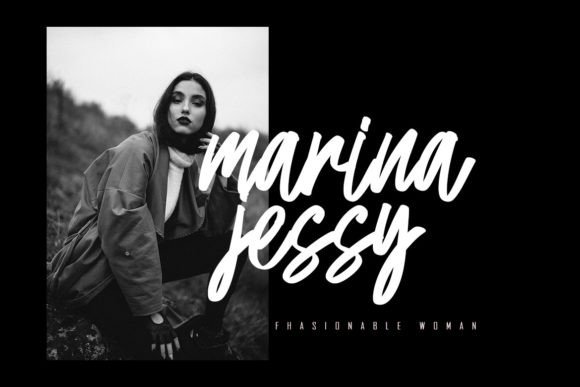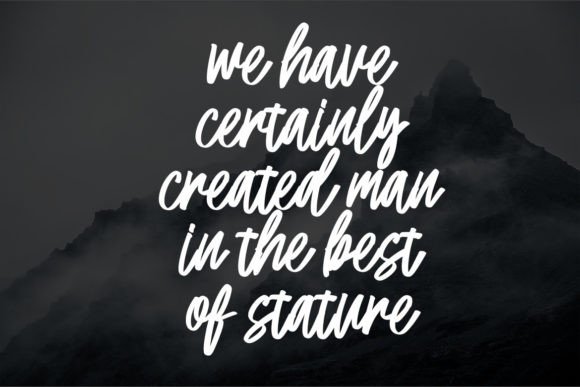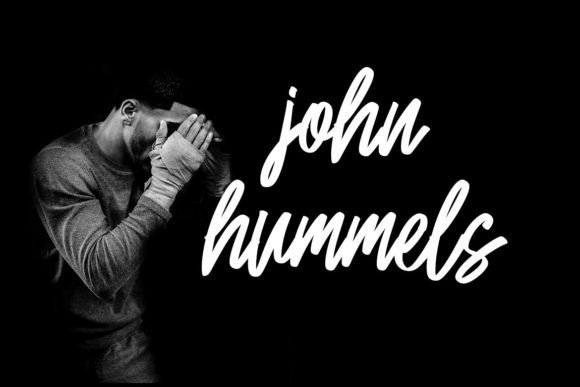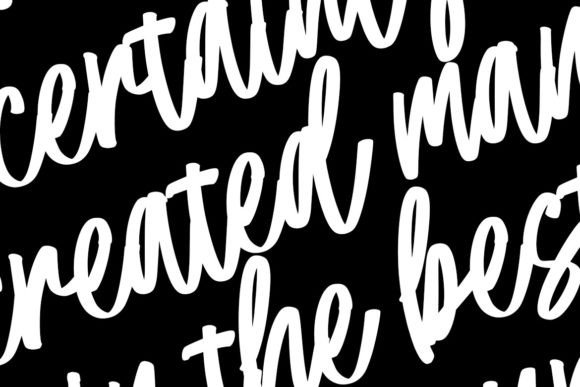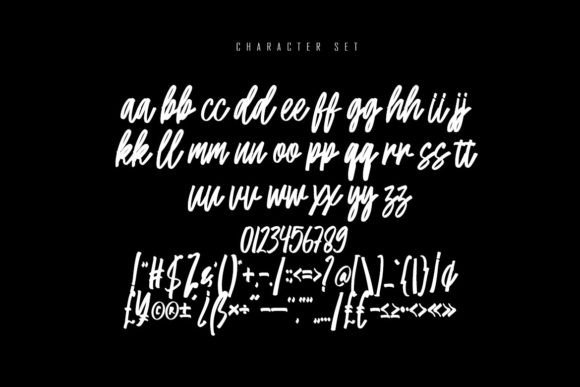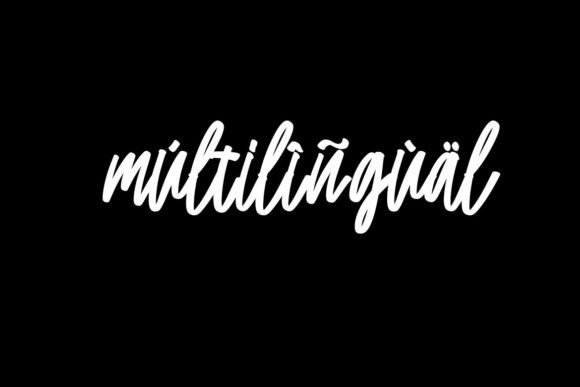
Introduction to Miralas Font
As a bold and beautiful handwritten font, Miralas Font is the perfect addition to any creative project. With its strong, confident, and dynamic feel, it’s sure to add a stylish touch to your headlines and logotype projects. Whether you’re working on a website, social media campaign, or branding project, Miralas Font can bring a touch of nostalgia and character to your designs.
Key Features of Miralas Font
• High-quality design resource for creative projects, suitable for various applications including logos, branding, and typography.
• Unique, modern design with a transparent background, allowing for seamless integration into any design.
• Features a clear and legible font style, suitable for both print and digital media, with a resolution of 300 DPI.
• Supports a wide range of languages, making it a versatile design resource for global creative projects.
• Designed to be highly scalable, ensuring high-quality output even at large font sizes.
Honest Review: Miralas Font
As a designer, I’ve had my fair share of experimenting with various design resources to elevate my creative projects. The Miralas Font has been a recent addition to my toolkit, and I’m excited to share my honest review.
• ✨ The Miralas Font is incredibly versatile, with a range of styles that can suit both modern and traditional designs.
• ✨ The font’s high quality is evident in its crisp and clear typography, perfect for showcasing my creative projects.
• ⚠️ Some users may find the font’s transparent background to be a bit tricky to work with, especially when using it with complex designs.
Overall, I’m impressed with the Miralas Font’s potential to elevate my creative projects. While it has some limitations, its high quality and versatility make it a valuable addition to my design resource collection.
Miralas Font
Tips for Getting the Most Out of Miralas Font
Use the Miralas Font on a transparent background to create a clean and minimalist design. Experiment with different font sizes and colors to add visual interest to your project. You can also use it in combination with other design elements to create a unique look.
Common Use Cases for Miralas Font
The Miralas Font is ideal for creating high-quality designs for social media, presentations, and documents. It’s also great for use in branding and marketing materials, such as business cards and brochures.